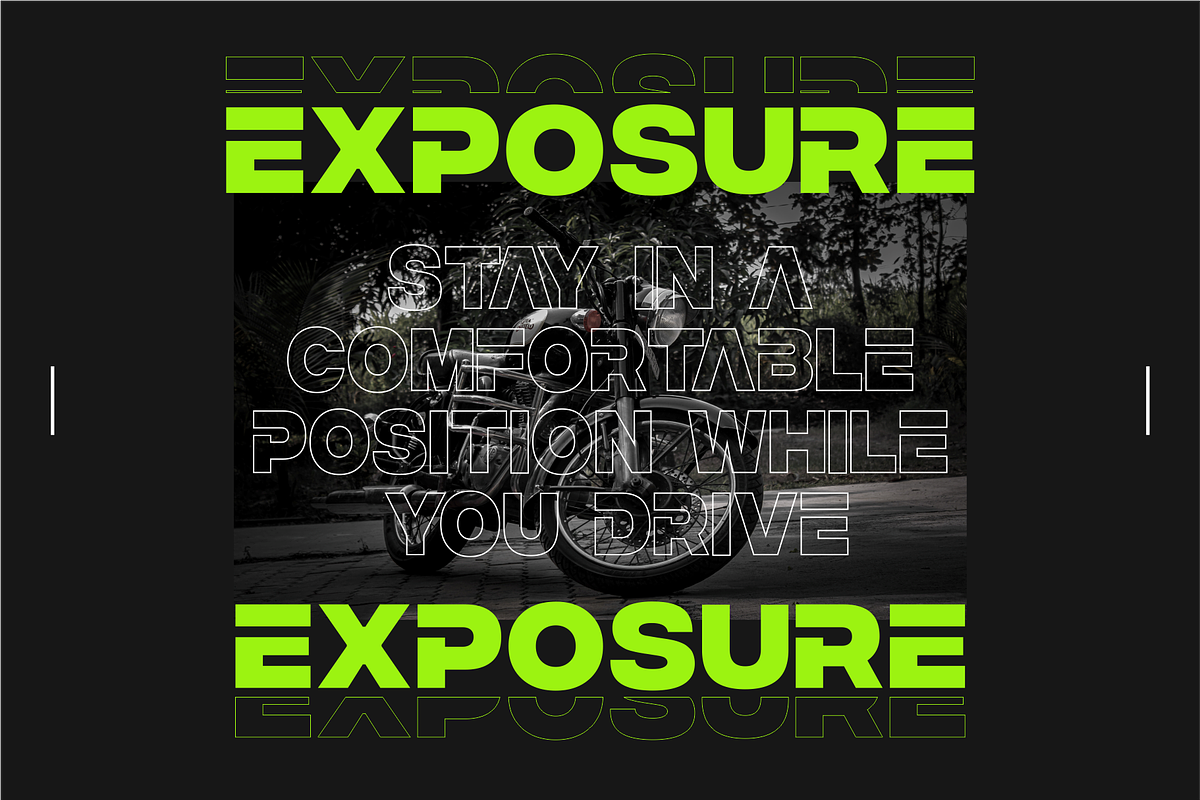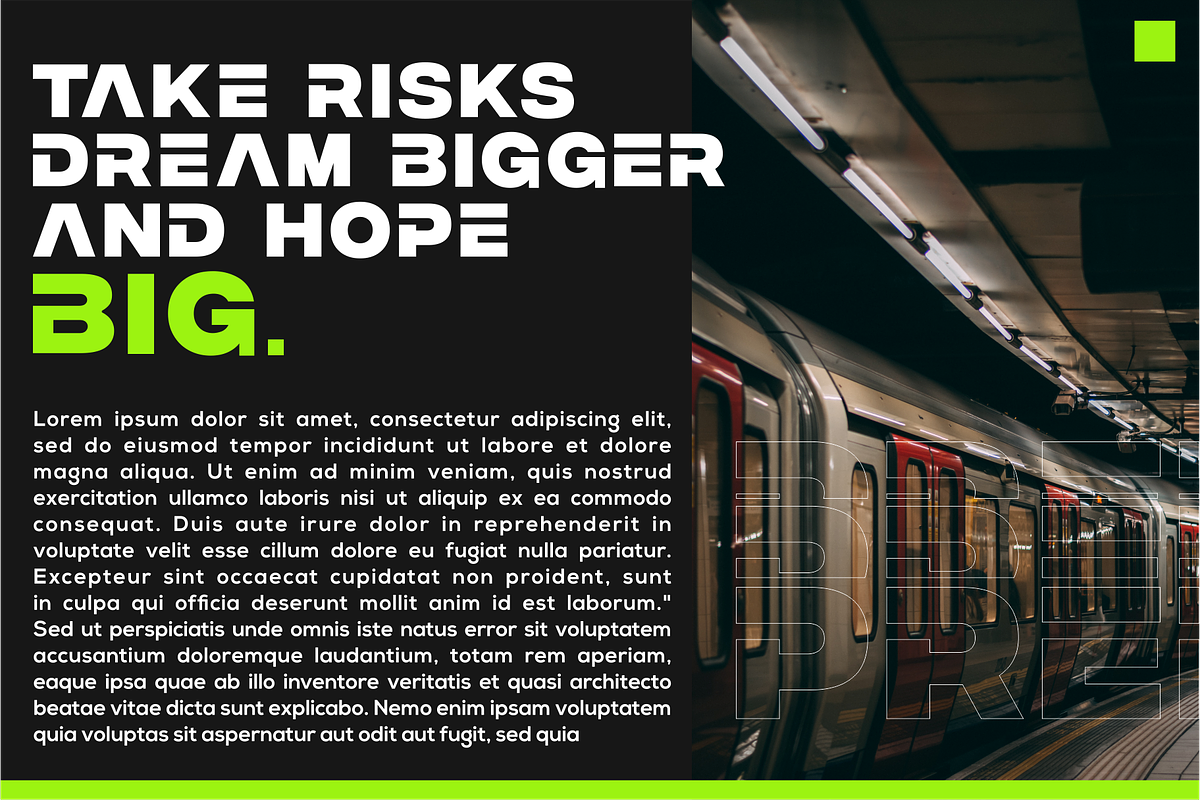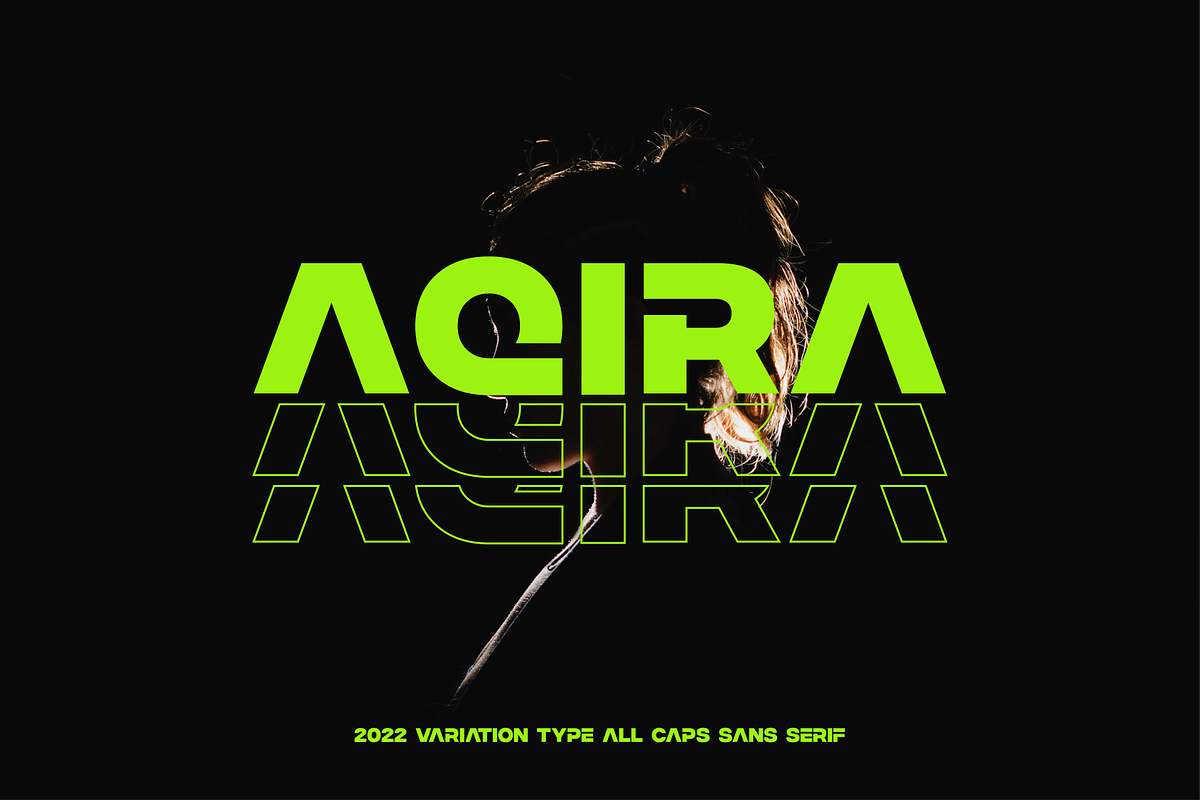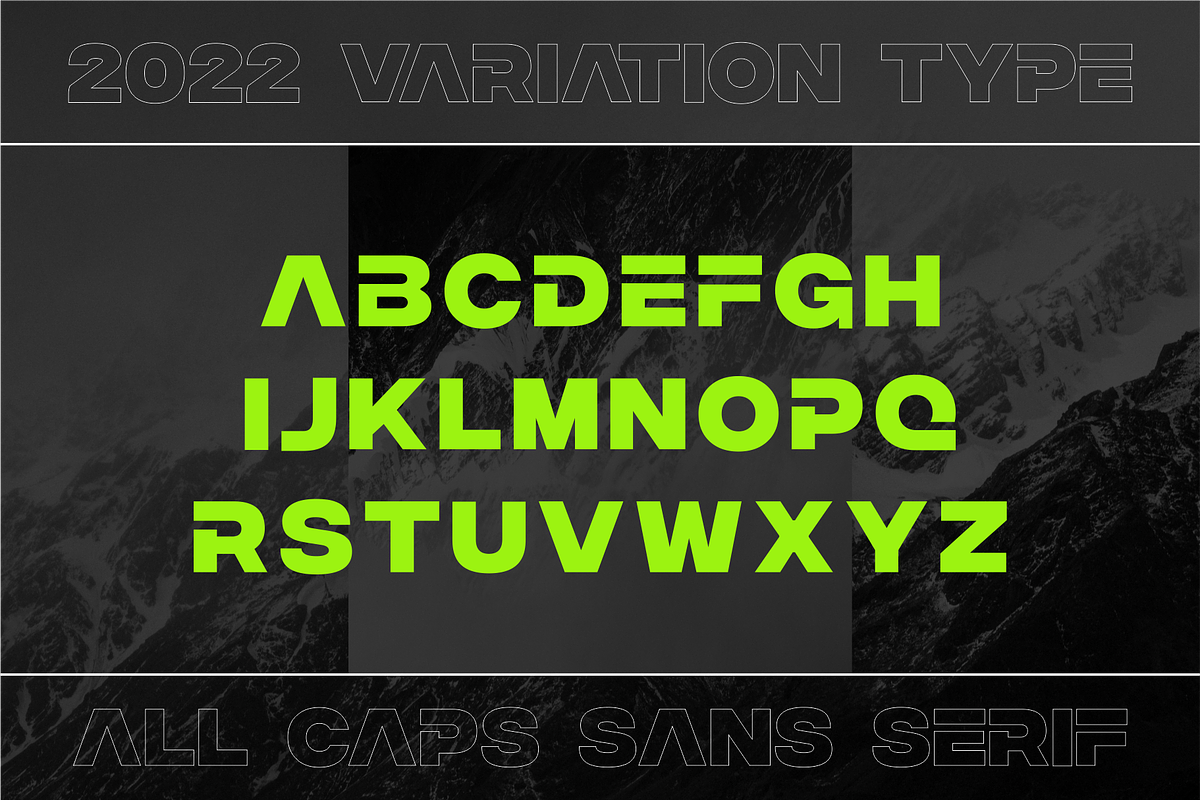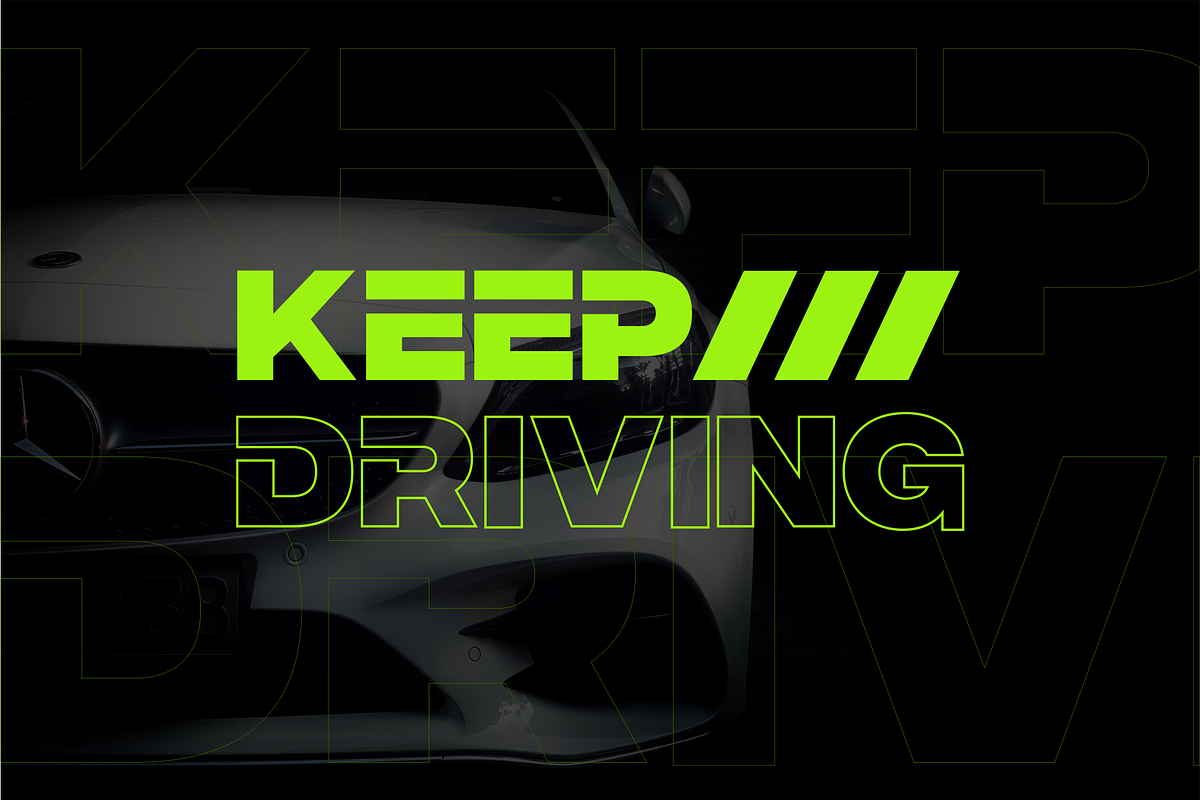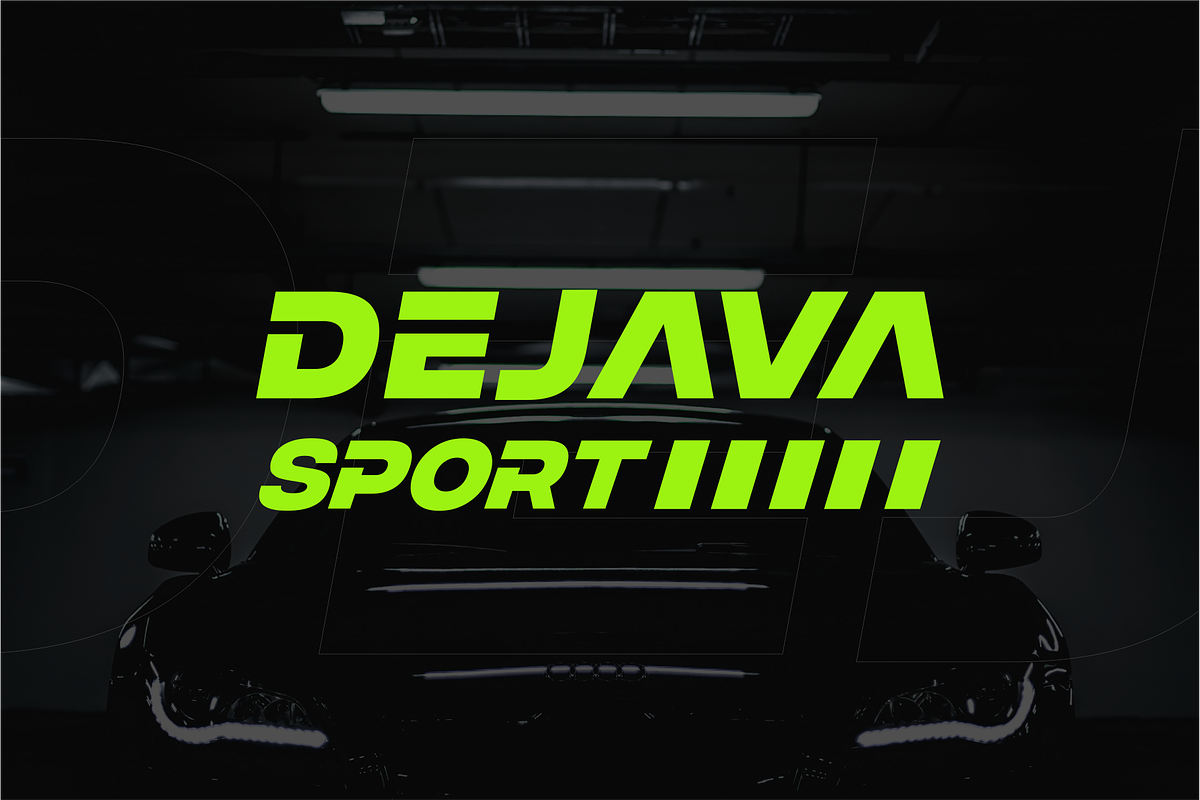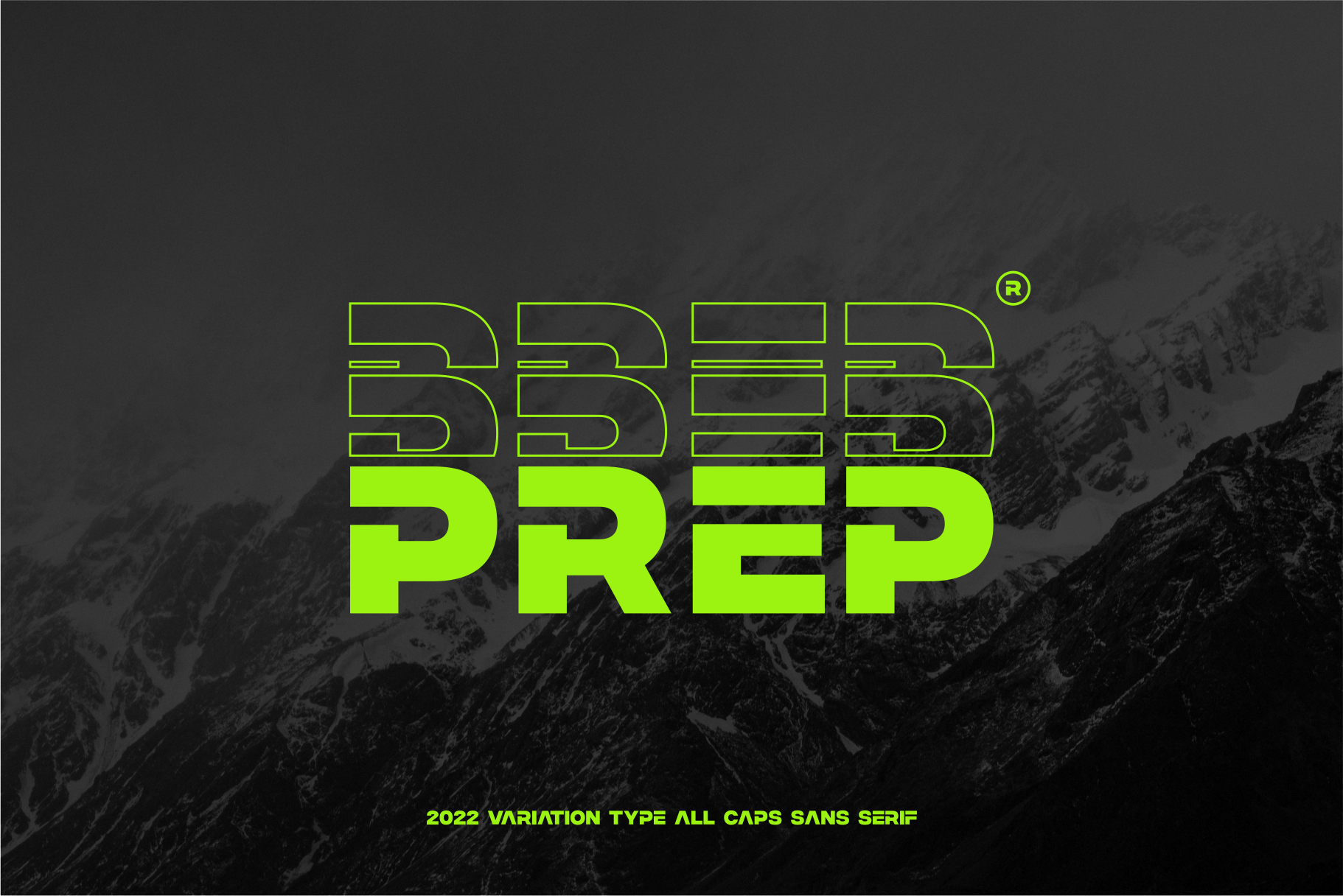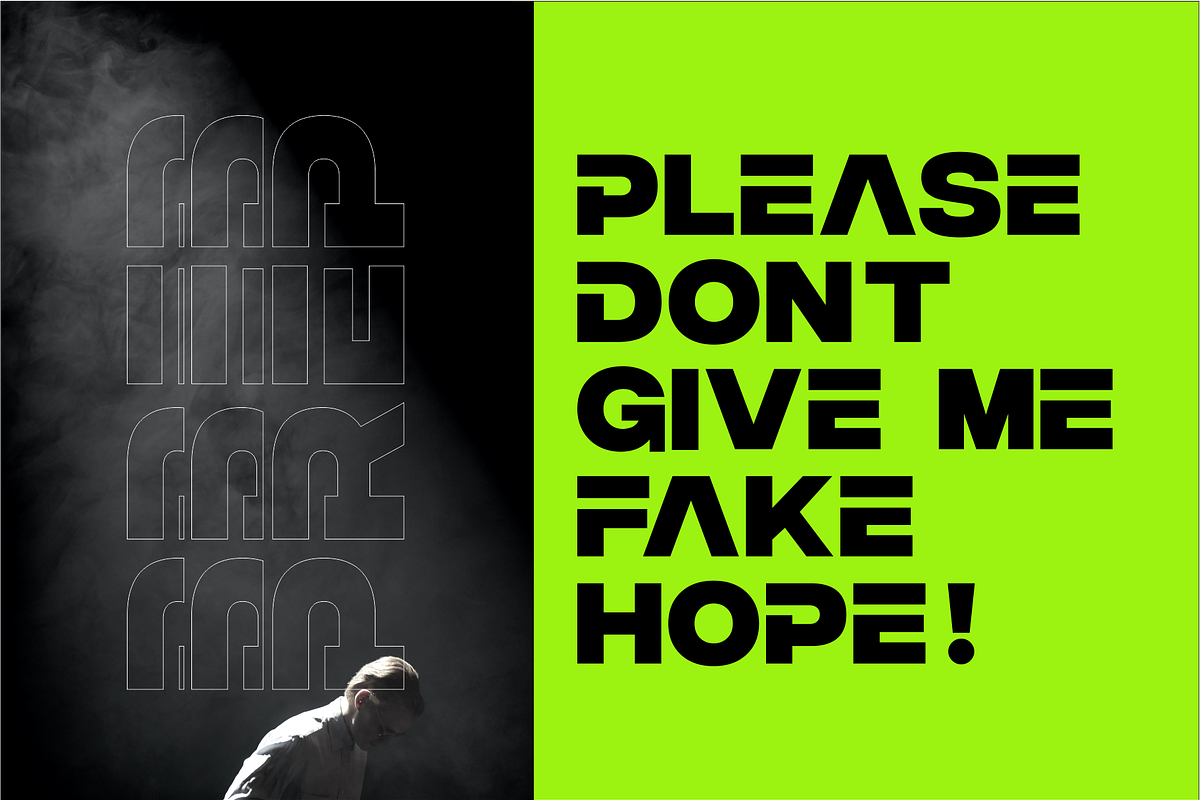
PREP - All Caps font logos
PREP - modern font with edge, geometric corners, perfect for many project: fashion, magazines, logo, branding, photography, quotes, blog header, poster, advertisements, postcard, book, websites, etc.